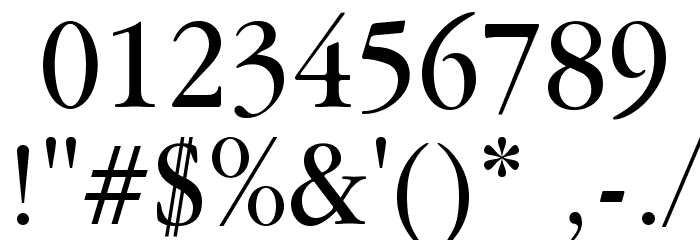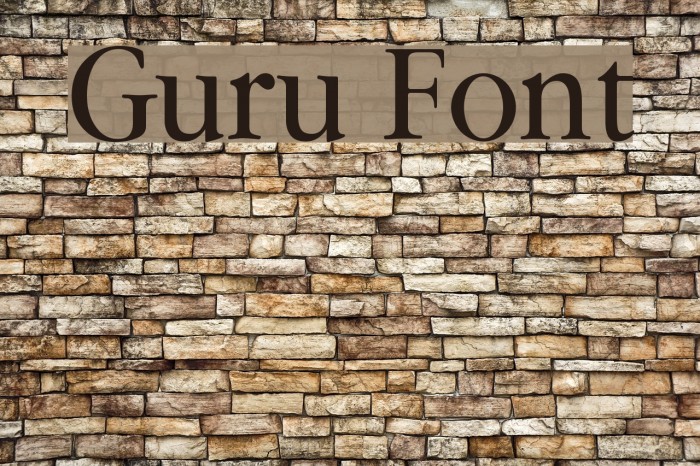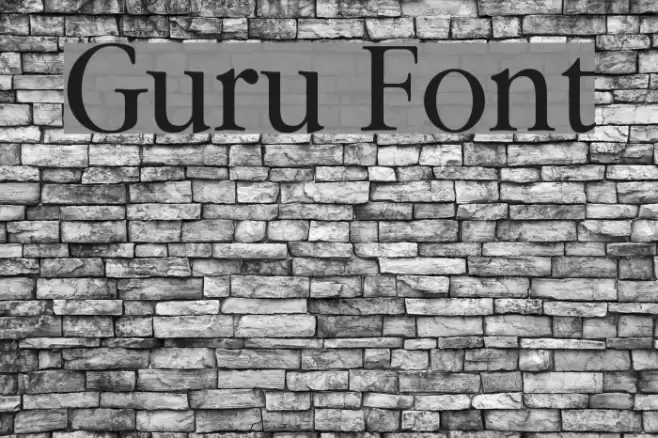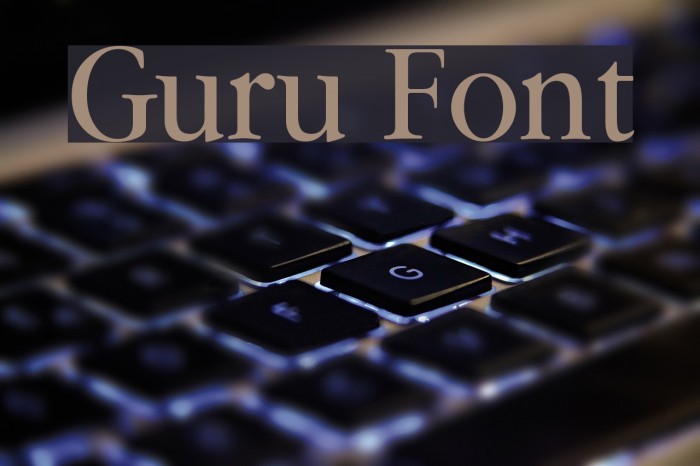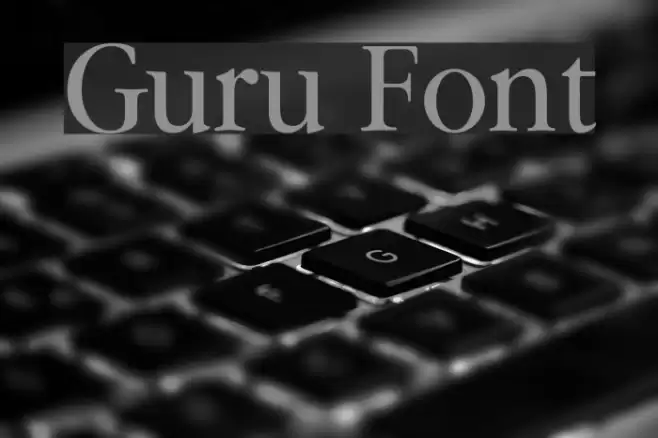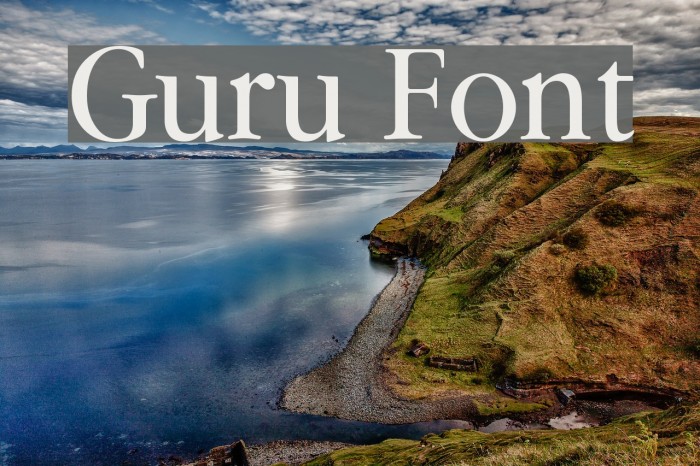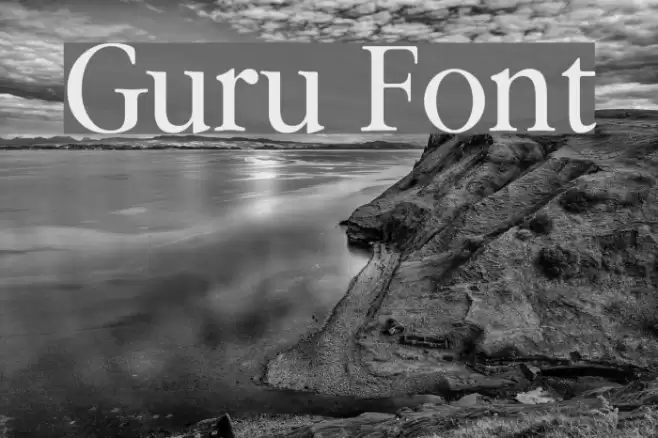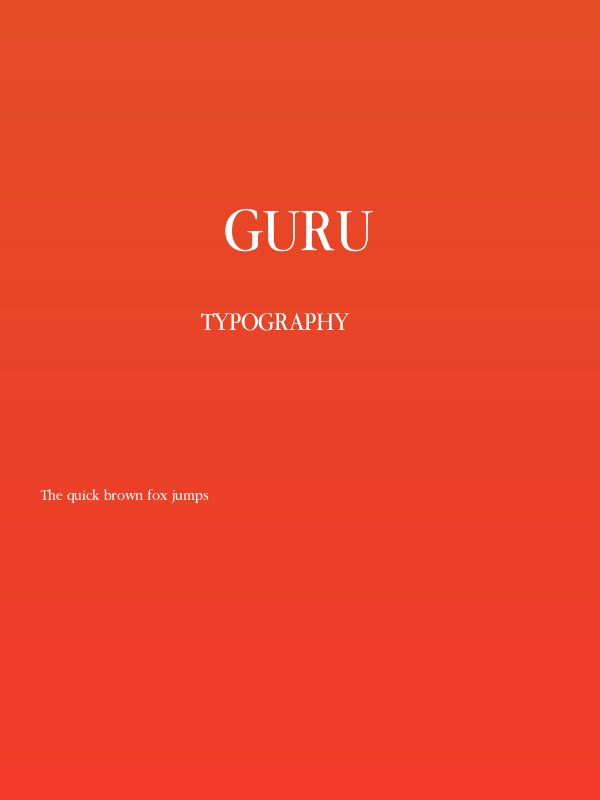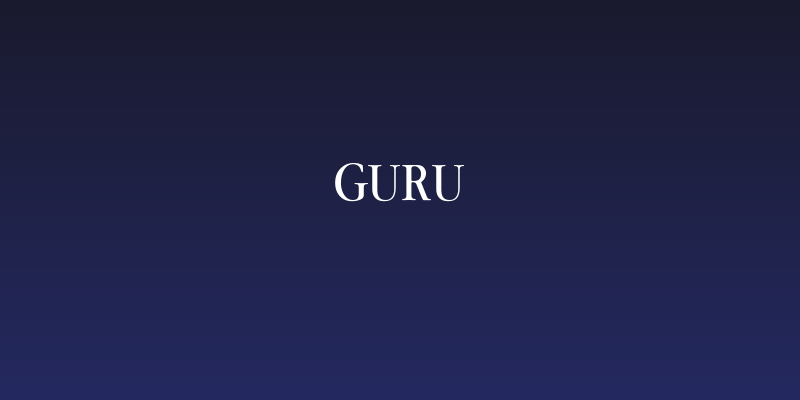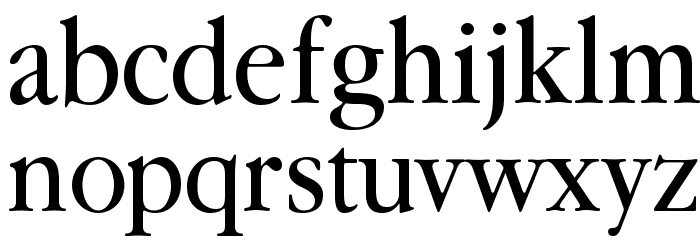
Guru Font
Guru Description
This font exhibits a classic serif style with elegant, flowing lines and a sophisticated appearance. The serifs are pronounced, adding a touch of formality and tradition to the overall look. The uppercase letters are well-proportioned, with a balanced weight that gives them a strong presence. The lowercase letters maintain a consistent style, with smooth curves and a harmonious flow. The numerals are clear and legible, making them suitable for both text and display purposes. Special characters are designed with the same attention to detail, ensuring they integrate seamlessly with the rest of the typeface.
| Proposed Projects | Ideal for editorial design, book covers, formal invitations, and branding projects that require a touch of elegance and tradition. |